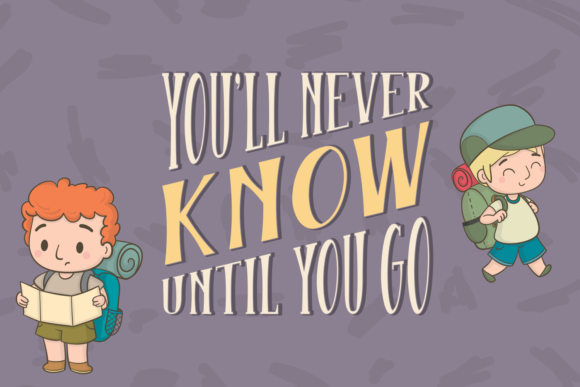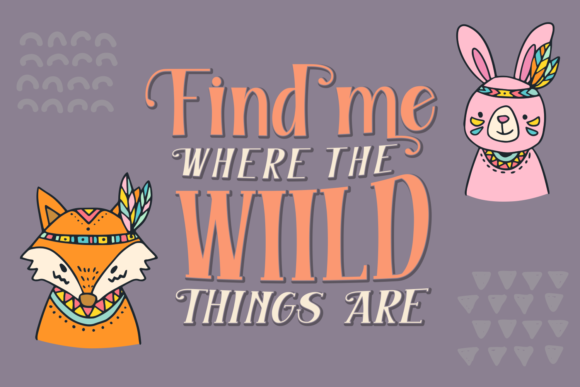
Introducing the Happy Necessity Family Font: Elevate Your Designs with Playful Elegance
In the world of design, fonts play a crucial role in conveying messages, evoking emotions, and creating a lasting impression. For designers and crafters seeking a font that combines playfulness with elegance, the Happy Necessity Family Font is an excellent choice. This amazing font family includes 4 variations, offering endless opportunities to create unique designs that capture your audience’s attention.
What Makes Happy Necessity Stand Out?
The Happy Necessity font family is designed to bring a touch of joy and whimsy to your designs. Its key features include:
- 4 Variations: With four distinct variations, you can experiment with different styles to match your project’s tone and theme. Whether you’re working on a children’s book, a branding campaign, or a craft project, there’s a Happy Necessity font to suit your needs.
- Great Readability: The Happy Necessity font is optimized for readability, ensuring that your text is clear and easy to understand. This makes it perfect for body text, headings, and titles.
- Playful Touch: The font’s playful design adds a touch of personality to your designs, making them more engaging and memorable.
The Happy Necessity Family Font is an excellent addition to any designer’s or crafter’s toolkit. Here are some ways you can use this versatile font:
- Branding and Marketing: Create eye-catching logos, business cards, and marketing materials that showcase your brand’s personality.
- Digital and Print Media: Use the Happy Necessity font in e-books, children’s books, magazines, and newspapers to add a playful touch.
- Crafting and DIY Projects: Add a personal touch to your craft projects, such as handmade cards, invitations, and scrapbooking pages.
Tips for Using the Happy Necessity Family Font
To get the most out of the Happy Necessity font, consider the following tips:
- Mix and Match: Experiment with different font variations to create visual interest and hierarchy in your designs.
- Play with Colors: Combine the Happy Necessity font with a range of colors to add personality and whimsy to your designs.
- Keep it Simple: Don’t be afraid to use the font for body text – its readability ensures that your message gets across clearly.
Key Benefits:
- 4 font variations for endless design possibilities
- Great readability for clear communication
- Playful design for a touch of personality
- Perfect for branding, digital and print media, and crafting projects